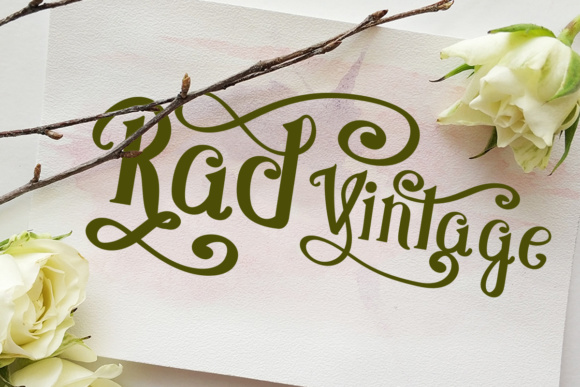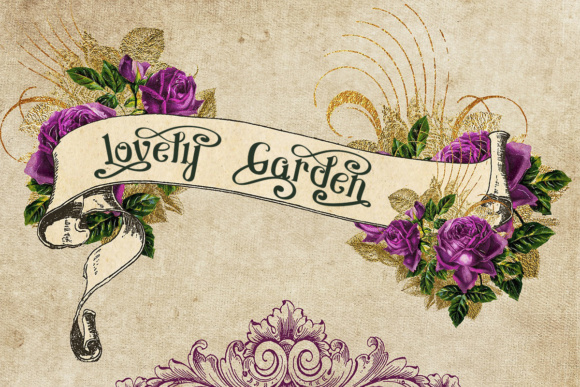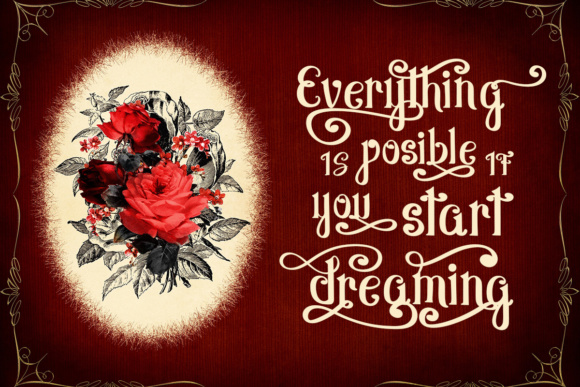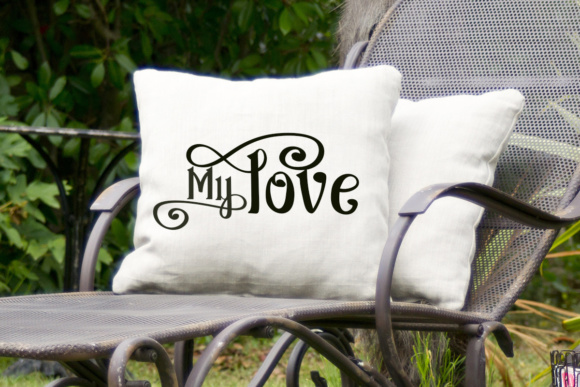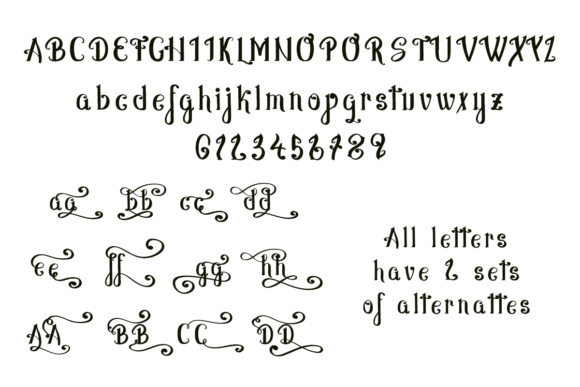
Rad Vintage Font
About Rad Vintage Font
Rad Vintage is a decorative script.
The base of Rad Vintage is a clean, almost serif looking script. On top of that, it has been packed with decorative swashes, turning your designs into something memorable in an instant.